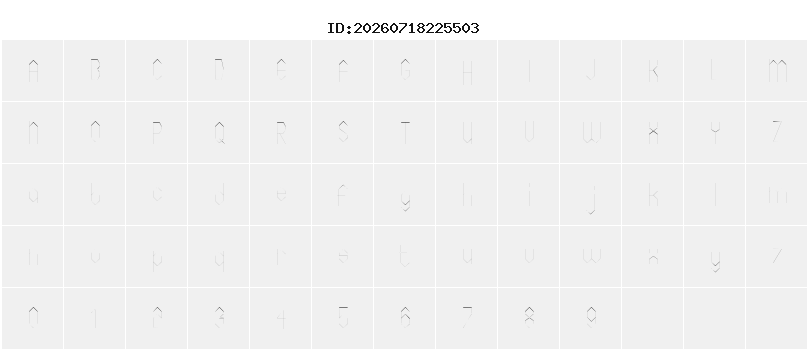
About Cornwall.ttf
Cornwall.ttf is a modern, elegant sans-serif font designed for ultimate readability and visual harmony. Perfect for branding, headlines, web design, and print materials.